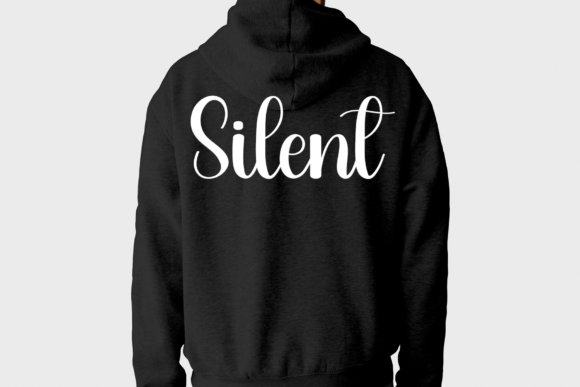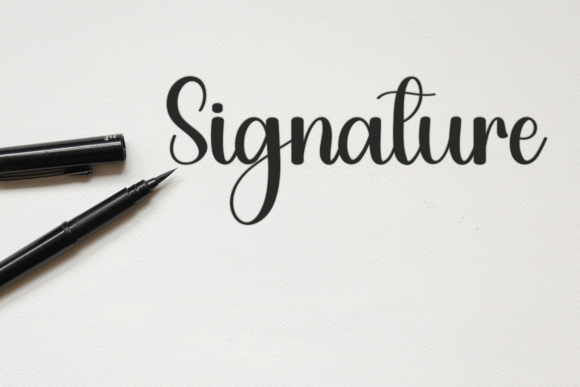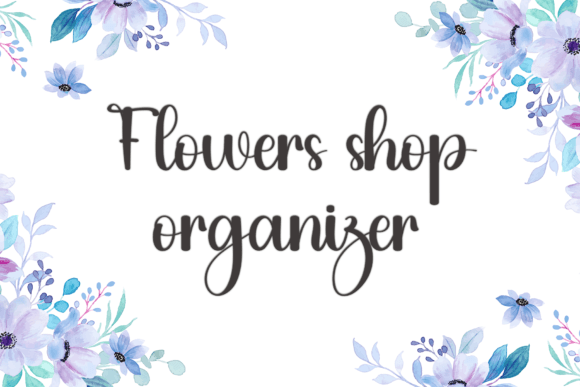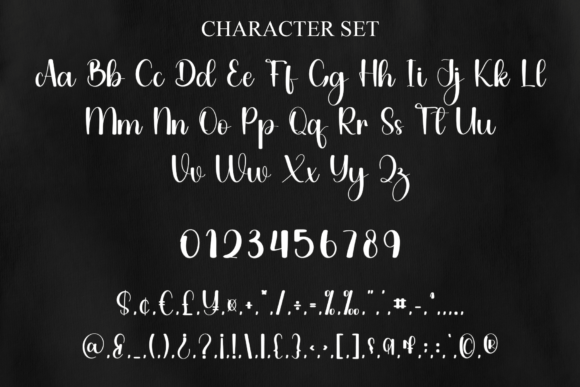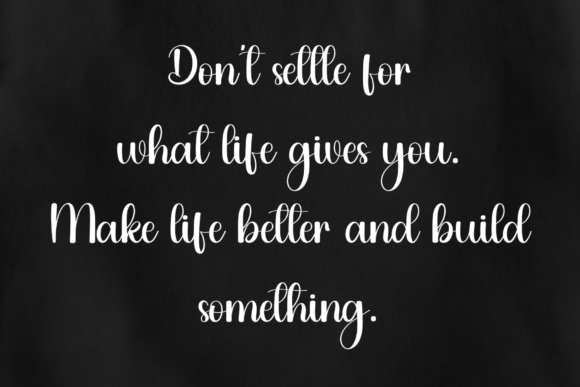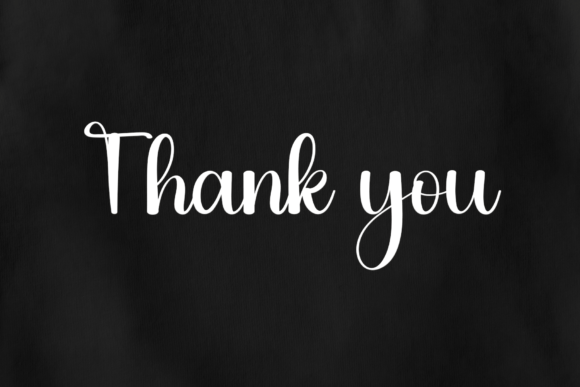
The Magical World of Barbie Font: Elevate Your Designs with Elegance
I’ll never forget the time I was working on a DIY project for a client’s birthday, and I was stuck on finding the perfect font to give it that extra oomph. I had the design concept nailed, but the font just wasn’t cooperating. That’s when I stumbled upon the Barbie Font – a game-changer for any designer, crafter, or creative hobbyist looking to add a touch of elegance to their work.
Here’s the lowdown on what makes Barbie Font so special:
- ✨ Magical handwritten feel: This font has a whimsical, handwritten quality that adds a personal touch to any design.
- ✅ Elegant and versatile: From Instagram posts to calligraphy scripts for DIY projects, Barbie Font adapts seamlessly to various design needs.
- 💫 Easy to read: Despite its elegant feel, the font remains clear and readable, even at smaller sizes.
Now, no font is perfect, and here are a few quirks to keep in mind:
- 🤔 Limited use in very formal designs: While elegant, Barbie Font might not be the best fit for very formal or corporate designs that require a more traditional look.
- ⚠️ Requires OpenType features: To get the most out of Barbie Font, you’ll need to use it with software that supports OpenType features, which might be a limitation for some users.
Exploring Alternatives: 4 Fonts Similar to Barbie Font
If you love Barbie Font, you might also enjoy these elegant handwritten fonts:
- Lobster: A more formal, yet still elegant script font perfect for sophisticated designs.
- Pacifico: A beautiful, modern script font with a relaxed feel, great for creative projects.
- Great Vibes: A stylish script font with a fun, energetic vibe, ideal for designs that need a bit of personality.
- Alex Brush: A whimsical, handwritten font with a playful feel, suitable for more casual designs.
The Story Behind Barbie Font: Designer Inspiration
Imagine a designer who grew up surrounded by art and fashion, always fascinated by the way typography could evoke emotions. This designer, inspired by the elegance of haute couture and the whimsy of handwriting, created Barbie Font to bring a touch of magic to everyday designs. With a keen eye for detail and a passion for creativity, they carefully crafted each letterform to ensure that Barbie Font would be both beautiful and versatile.
| Font Name | Barbie Font |
| Author | Black line |
Q: What makes Barbie Font so special?
A: Barbie Font’s unique blend of elegance and whimsy makes it perfect for a wide range of design projects, from DIY crafts to professional branding.
Q: Does Barbie Font support OpenType features?
A: Yes, Barbie Font takes full advantage of OpenType features, allowing you to customize your text with glyphs, ligatures, and stylistic alternates.